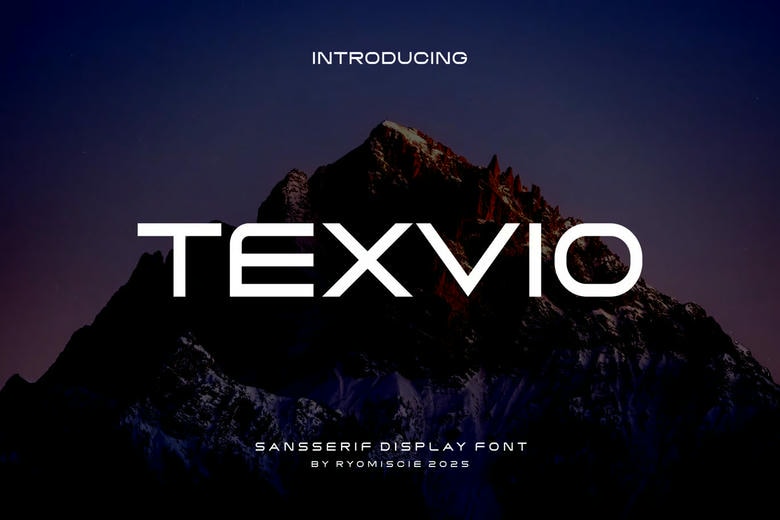
Texvio Font
Texvio Modern is a bold and authentic display font. The font is suitable for any branding project like logo, t-shirt printing, esport, and many more. outstanding in a wide range of contexts.
Texvio Sans Serif Font